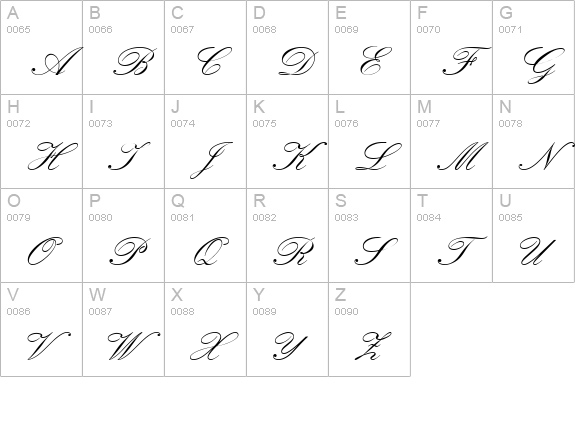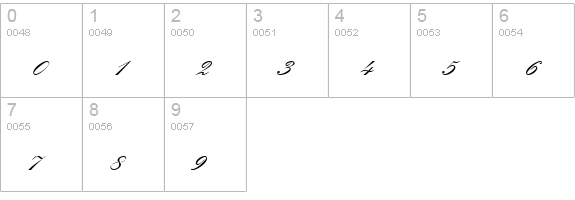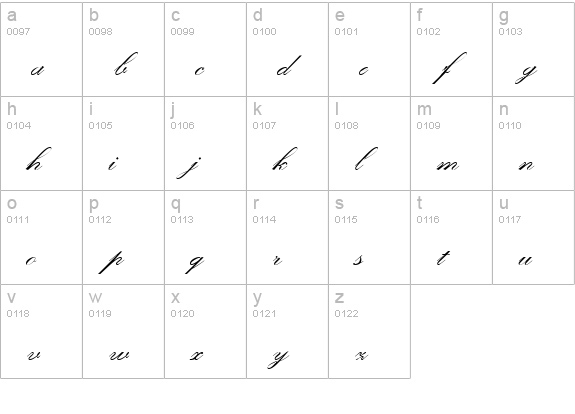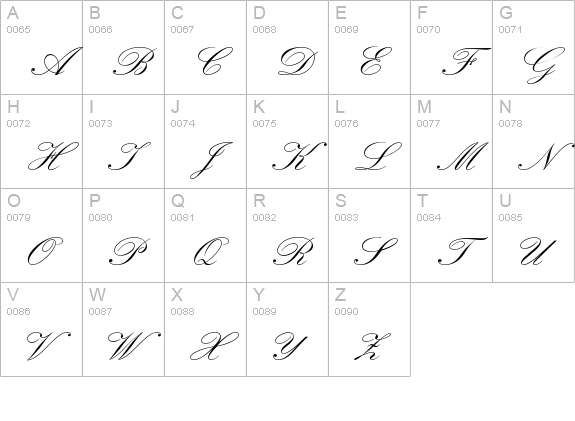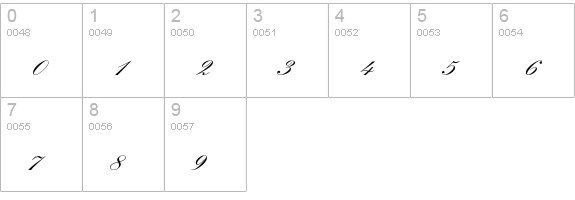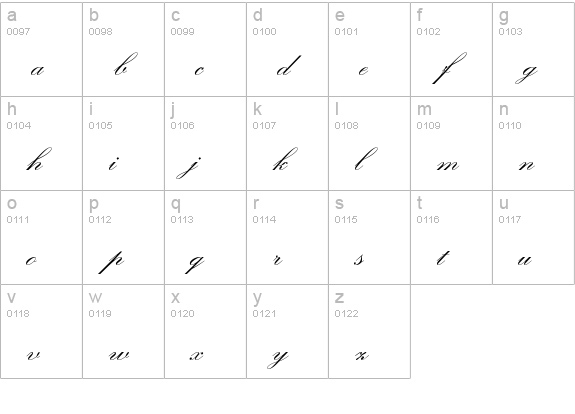
Heather Script Two is a stunningly elegant and effortlessly stylish font that embodies the essence of sophistication. With its delicate and graceful strokes, this font exudes a sense of timeless beauty that will captivate any audience. Designed by a team of talented typographers, Heather Script Two showcases a perfect balance between classic calligraphy and modern design elements, making it a versatile choice for a wide range of projects. Its smooth curves and flowing lines create a harmonious composition that adds a touch of refinement to any design. Whether you are creating wedding invitations, branding materials, or simply adding a touch of elegance to your personal projects, Heather Script Two is the perfect choice. Its versatility allows it to seamlessly adapt to any design concept, while its unique features make it stand out from the crowd. And the best part? Heather Script Two is available for free! You can easily download this remarkable font at FontsMarket.com, your go-to destination for high-quality fonts. By offering Heather Script Two as a free download, we aim to make it accessible to everyone, regardless of their budget or design expertise. So why wait? Elevate your designs to new heights with Heather Script Two. Download it today and unleash your creativity with this exquisite font that will undoubtedly leave a lasting impression.